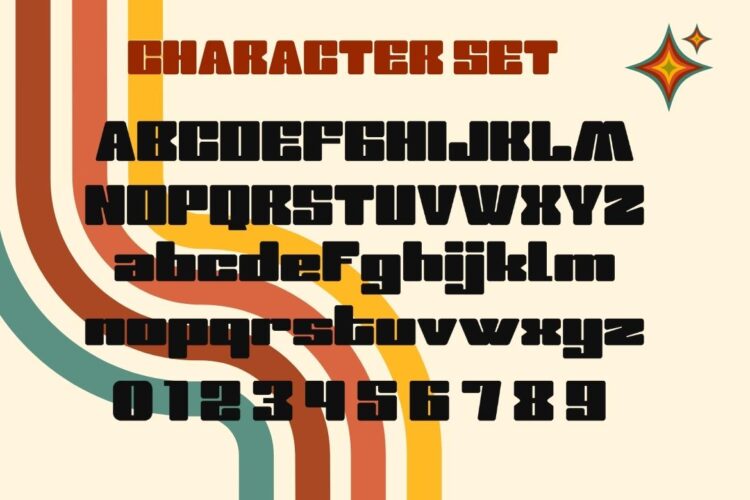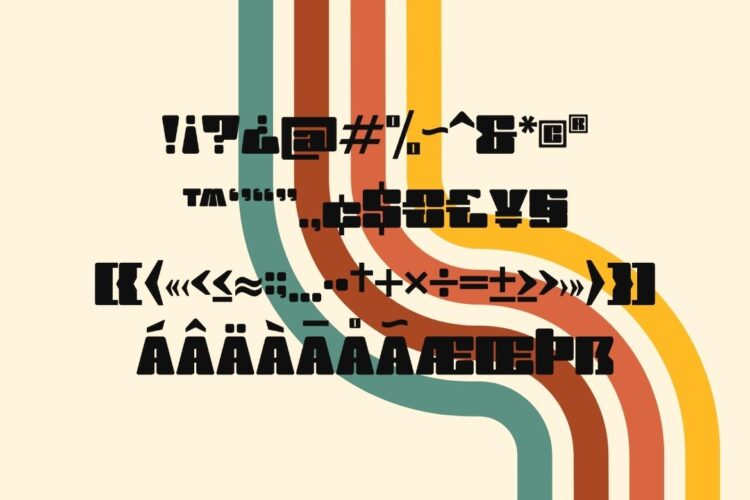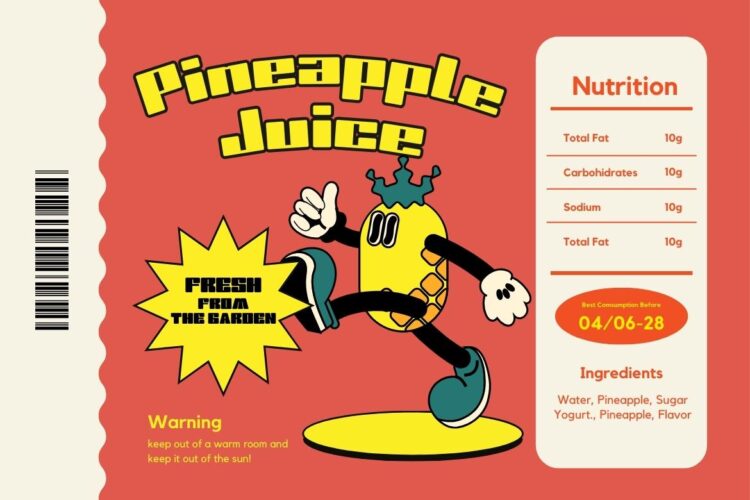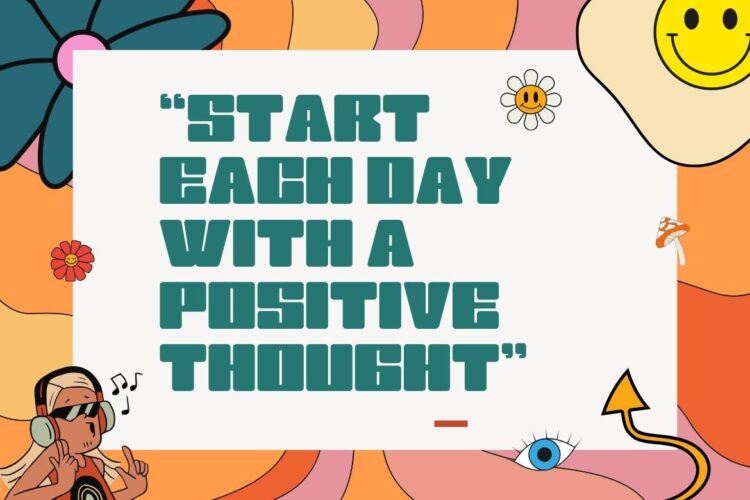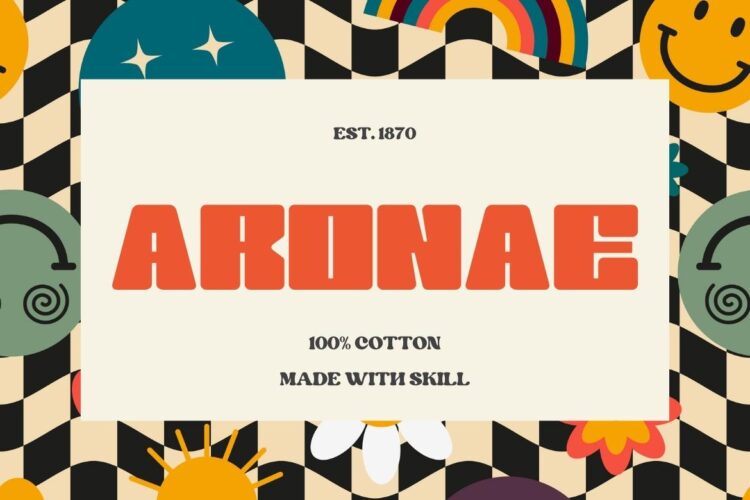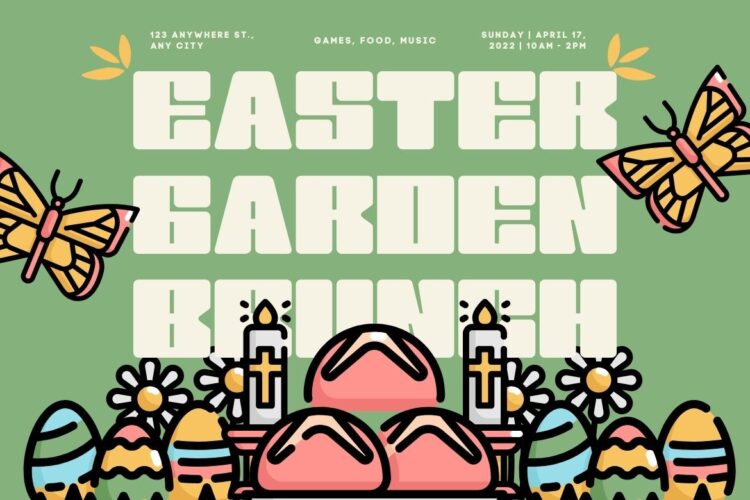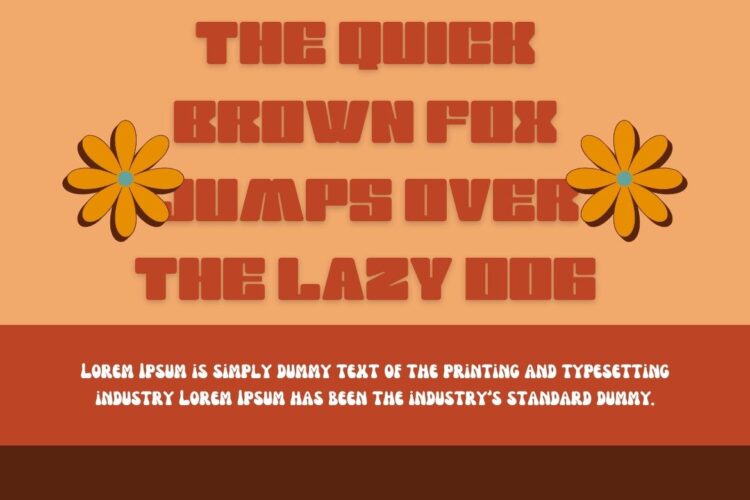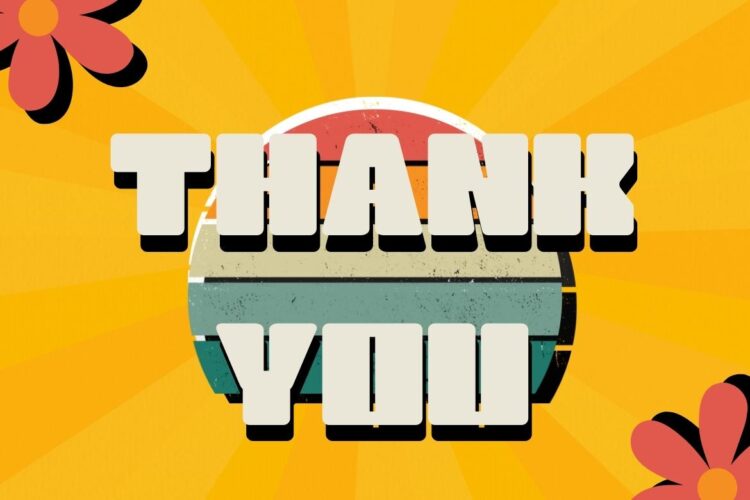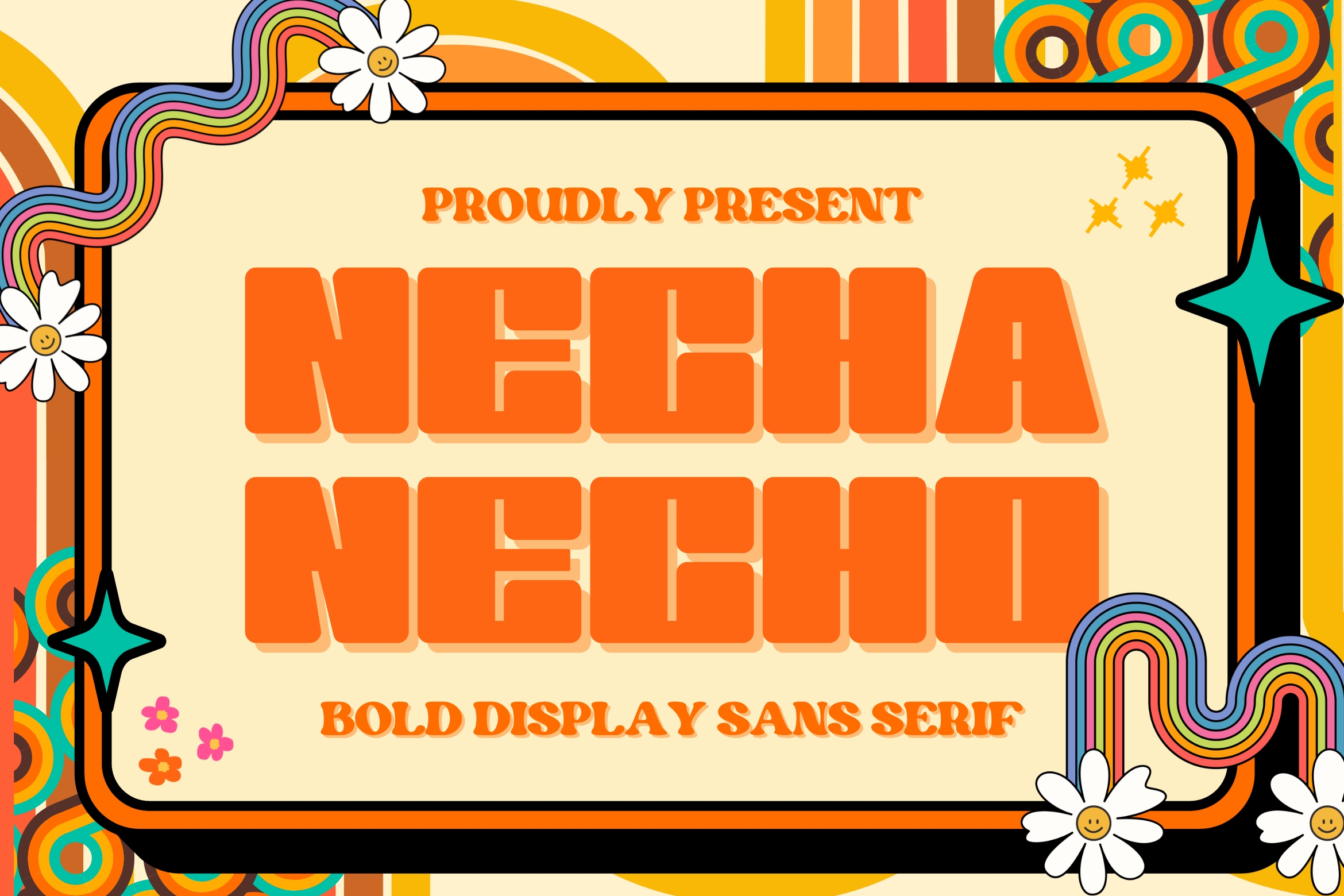
Necha Necho is a modern & retro bold san serif with a soft, rounded finish.making it very suitable for display, branding, packaging, logos, master heads, and others with a retro touch but still clean and elegant.